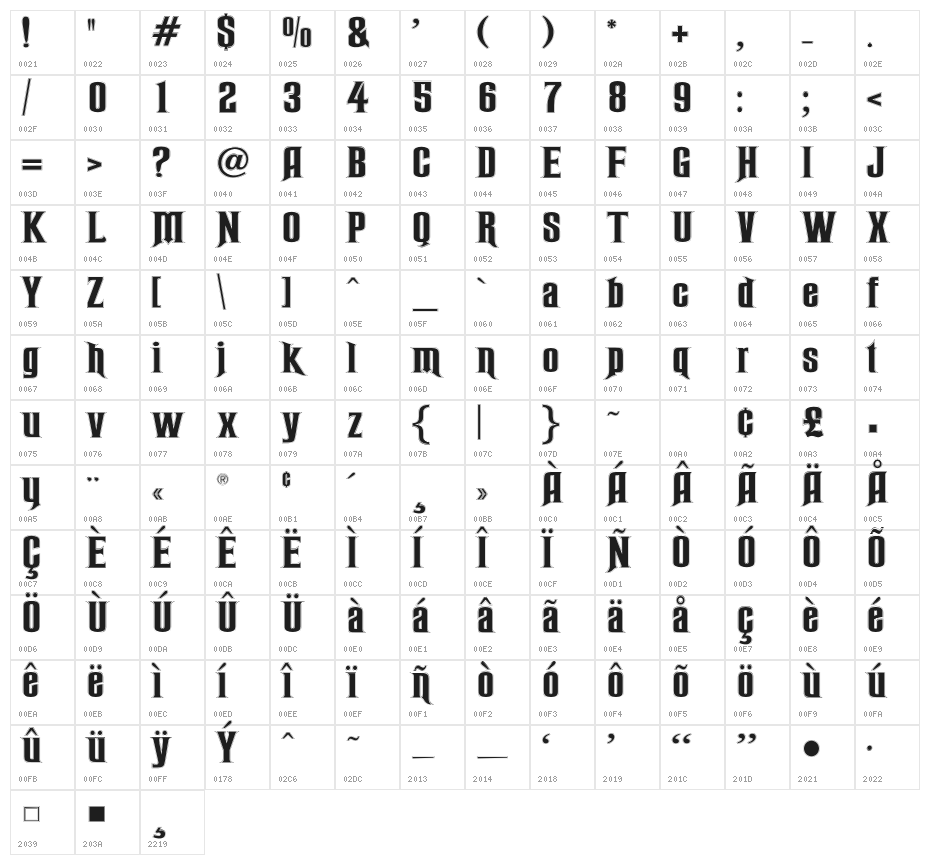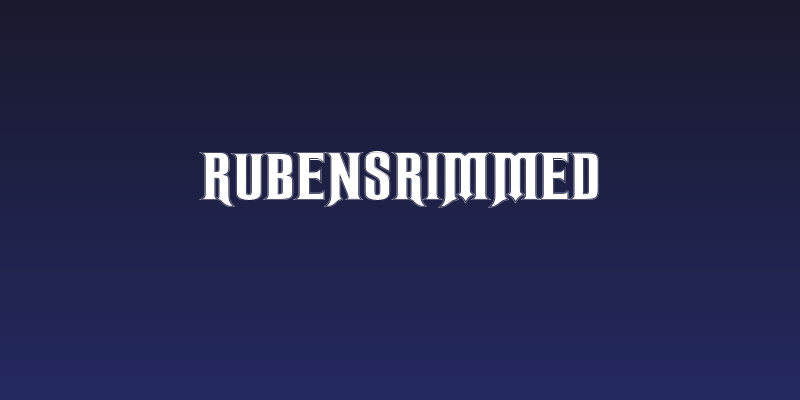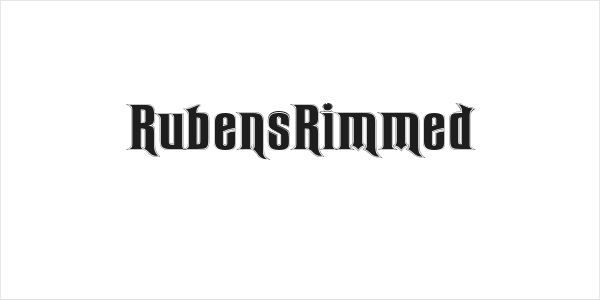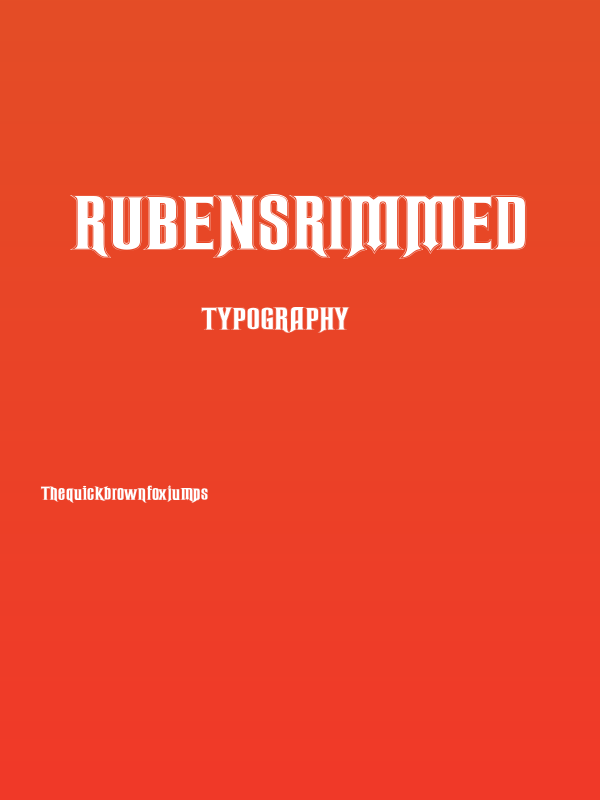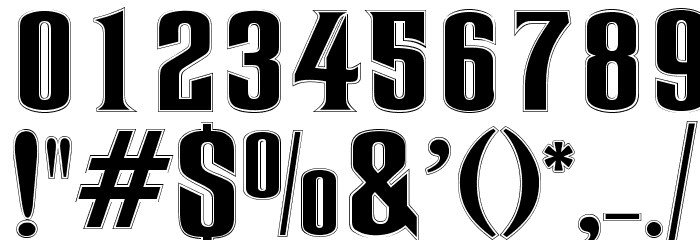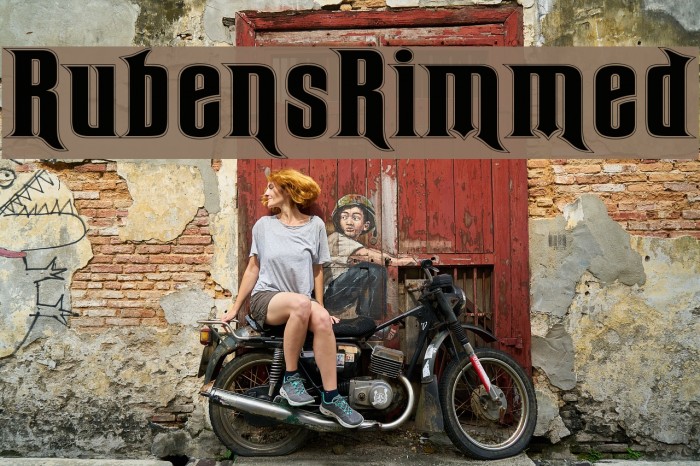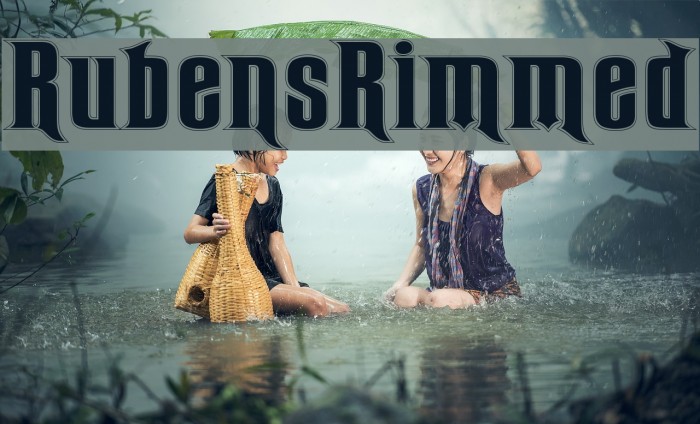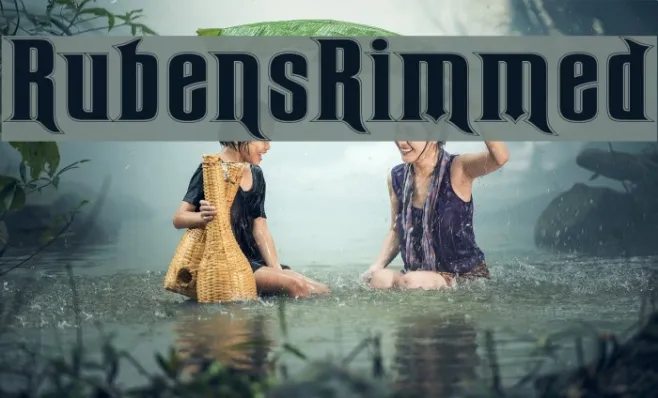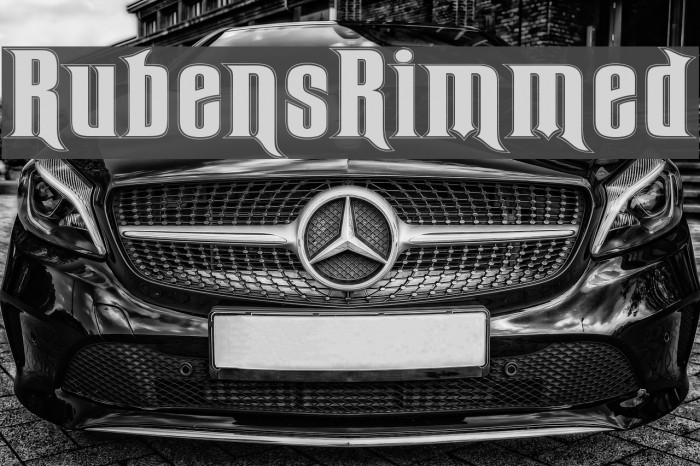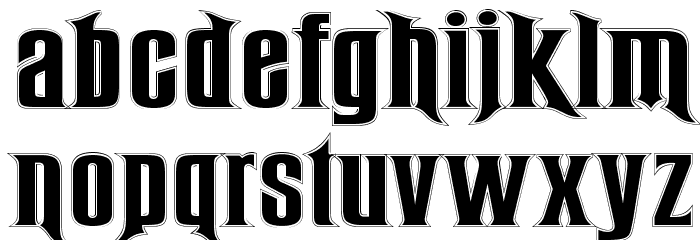
RubensRimmed Font
RubensRimmed Description
This font features a bold and dramatic style with a strong presence. The characters are designed with a high contrast between thick and thin strokes, giving them a striking and impactful appearance. The uppercase letters are particularly prominent, with sharp edges and a slightly condensed form that adds to their commanding look. The lowercase letters maintain the same boldness, ensuring consistency throughout the typeface. The numerals are equally bold, making them stand out effectively. The special characters are designed to match the overall aesthetic, with unique and eye-catching shapes. This font is ideal for projects that require a strong visual impact and a sense of authority.
| Width | Condensed |
| Overall Style | Dramatic, Bold, Impactful |
| Use Case | Headlines, Posters, Branding |
| Proposed Projects | Ideal for headlines, posters, branding, and any project needing a strong visual impact. |